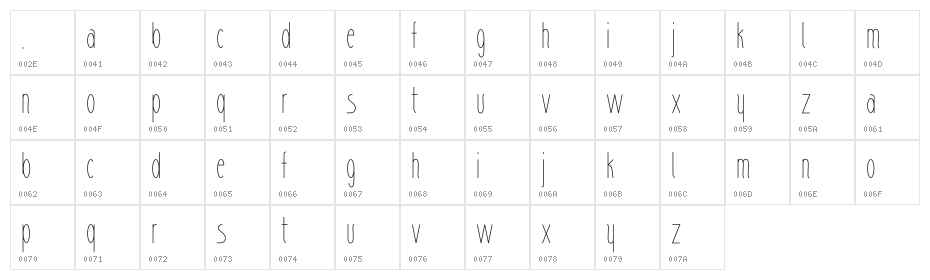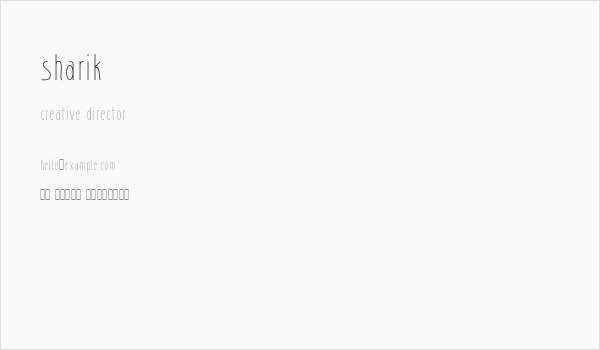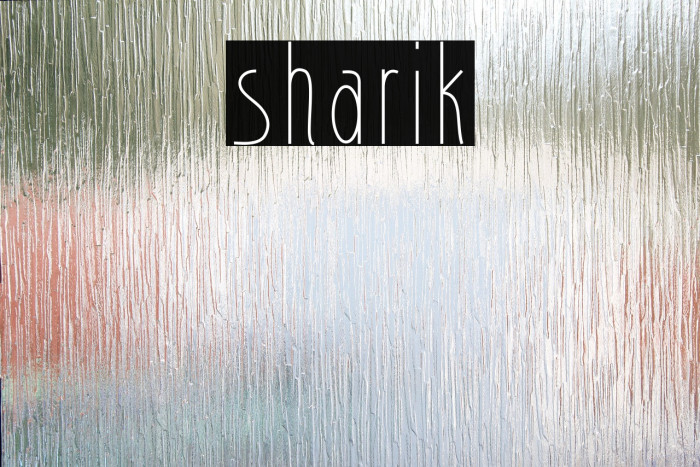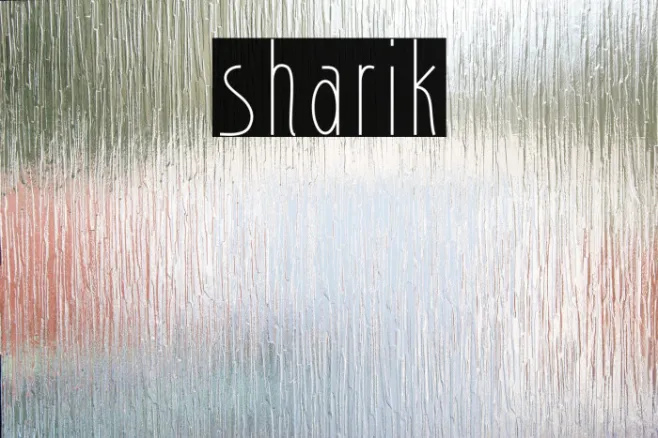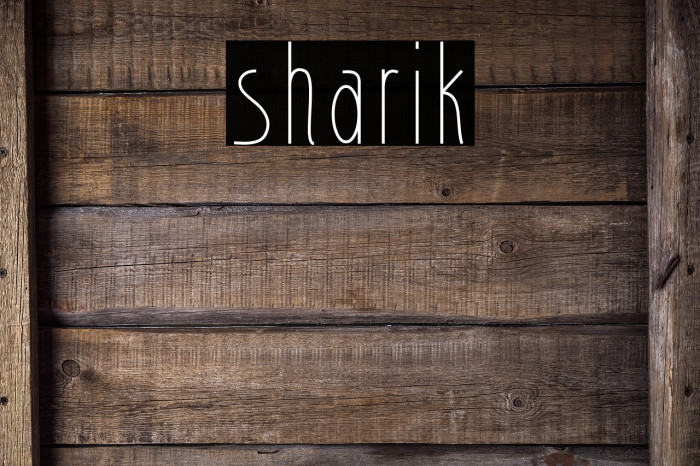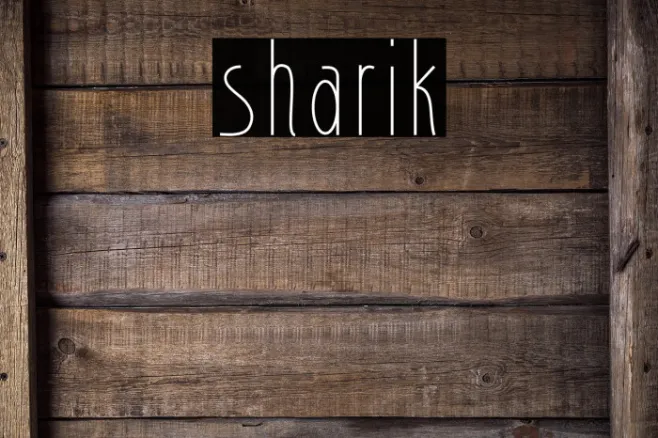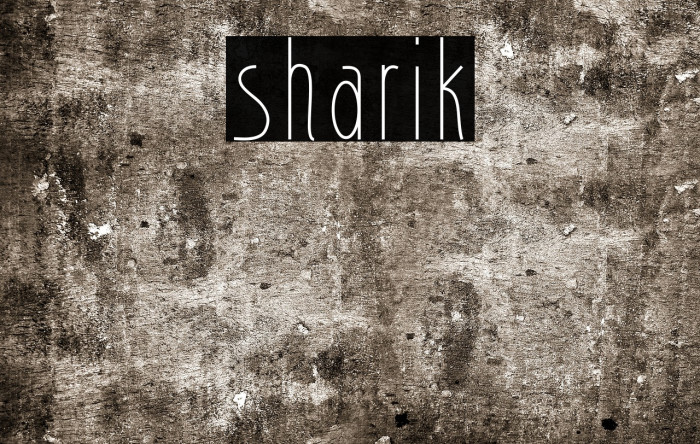
sharik Font
sharik Description
This font features a sleek and modern design with elongated letterforms that give it a distinctive and elegant appearance. The characters are tall and narrow, with consistent stroke widths that create a uniform look. The font's minimalistic style is enhanced by its clean lines and lack of serifs, making it highly readable and versatile. The spacing between characters is balanced, providing a harmonious flow that is pleasing to the eye. This font is well-suited for contemporary design projects that require a touch of sophistication and clarity.
| Proposed Projects | Ideal for branding, editorial design, websites, and advertising where a modern and elegant look is desired. |